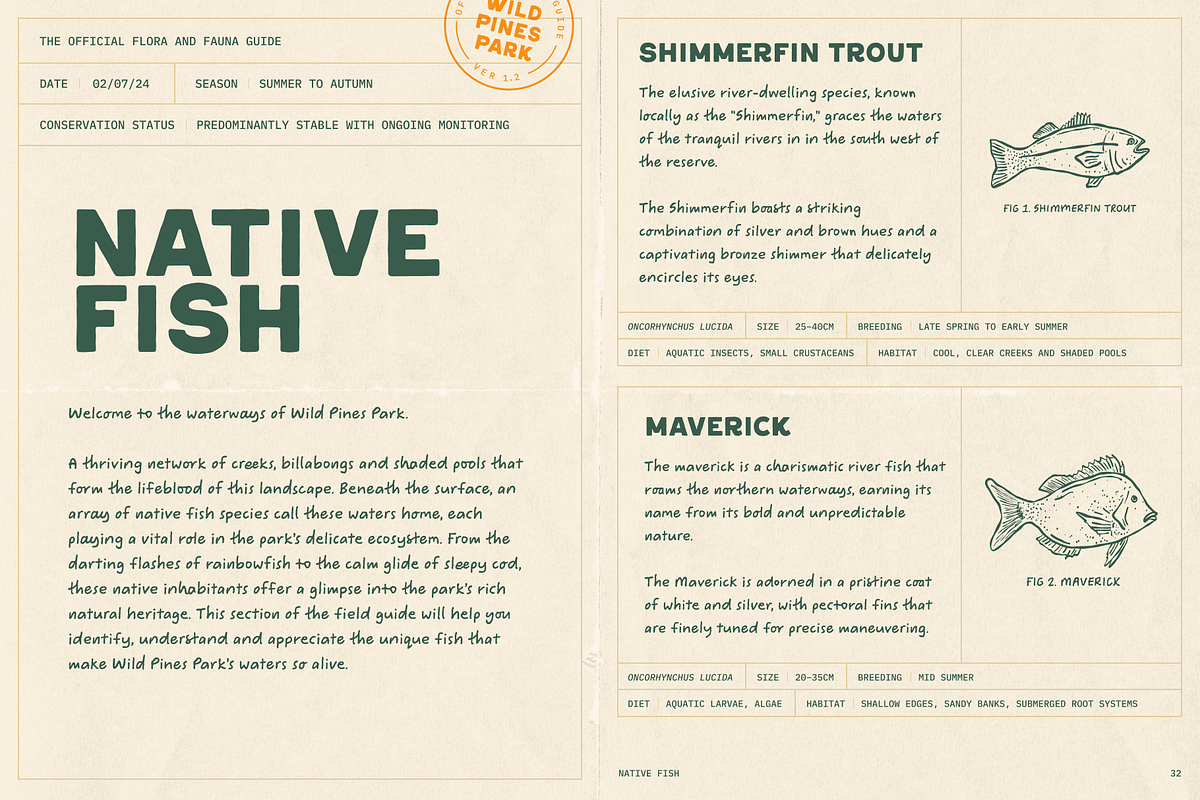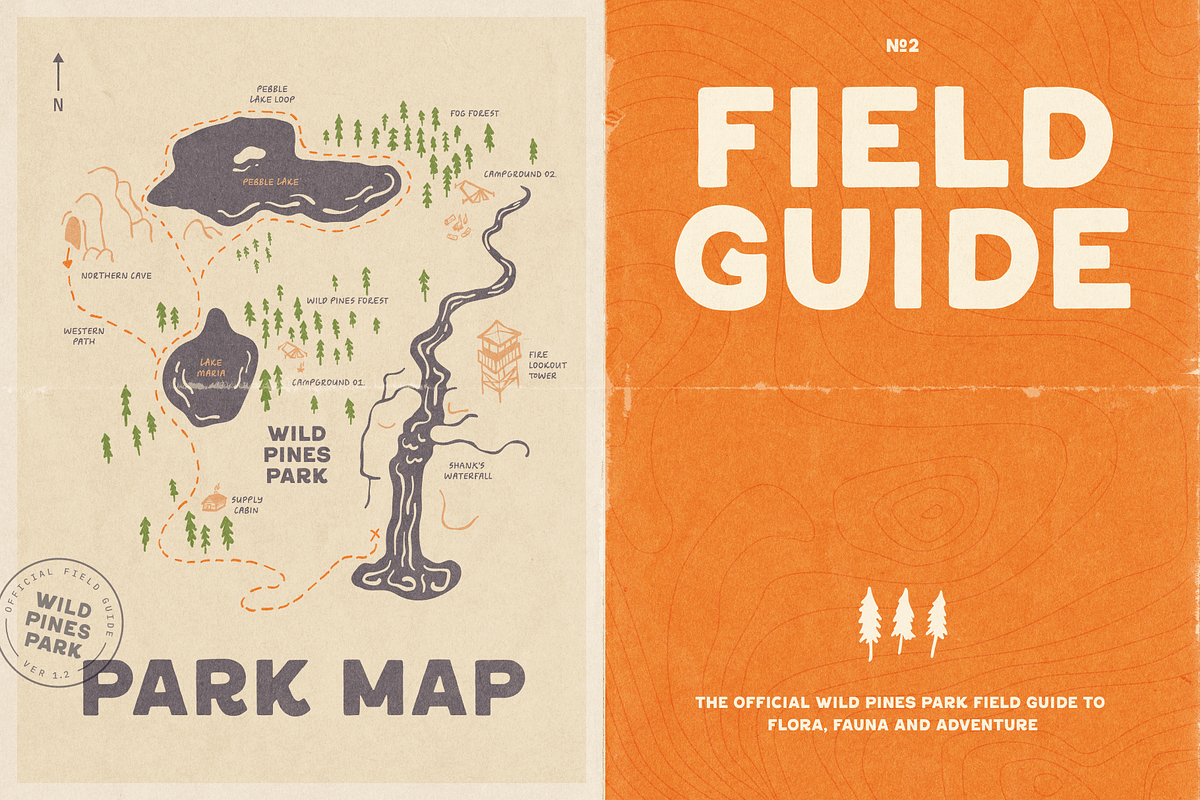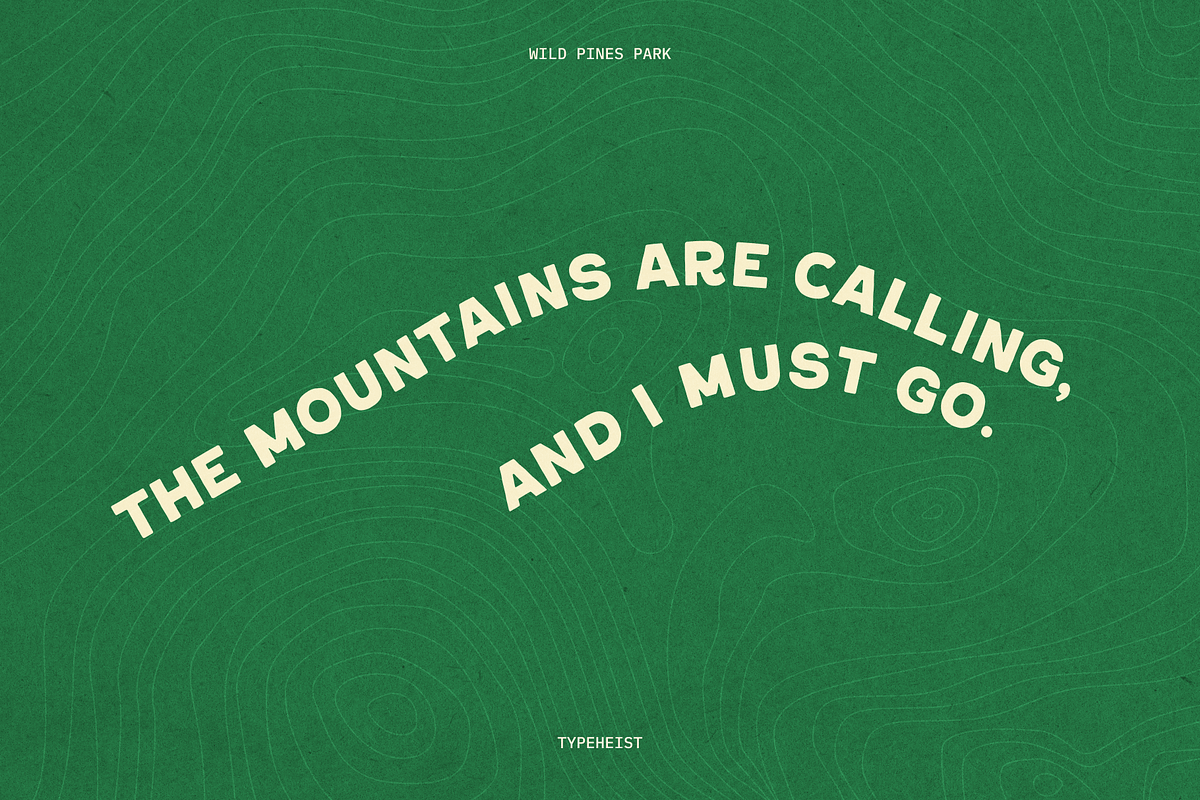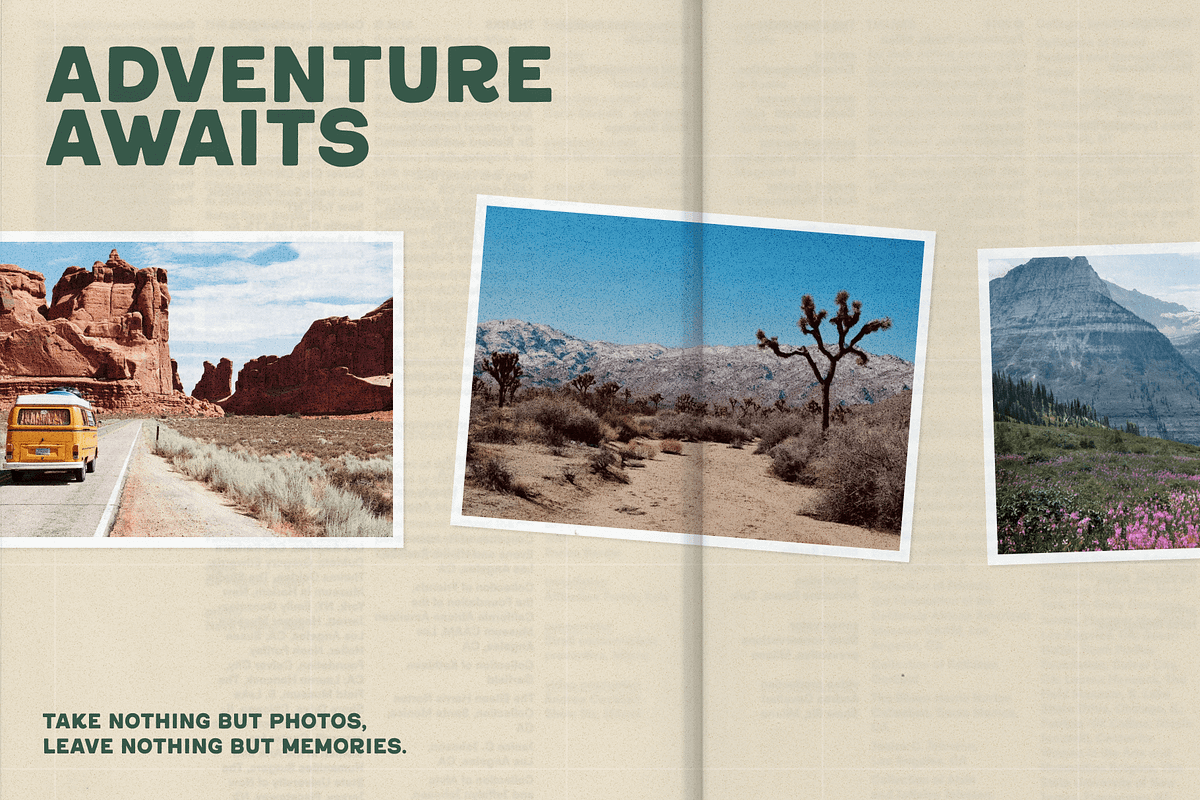
Wild Pines Park National Park Font
Wild Pines Park is a nostalgic, national park-esque font with a subtle ruggedness and Americana charm. Transport yourself to a bygone era, equipped with your handy field guide notebook, as you venture into the wilderness.
This attention-grabbing display font boasts a commanding yet comforting presence. Its unique characters (check out the K, R and G) add a playful touch to its bold nature.
Wild Pines Park is an all uppercase font with multi-lingual characters, a bunch of contextual alternates and special characters.
Let Wild Pines Park add that special vintage charm to your designs.
Wild Pines Park Regular